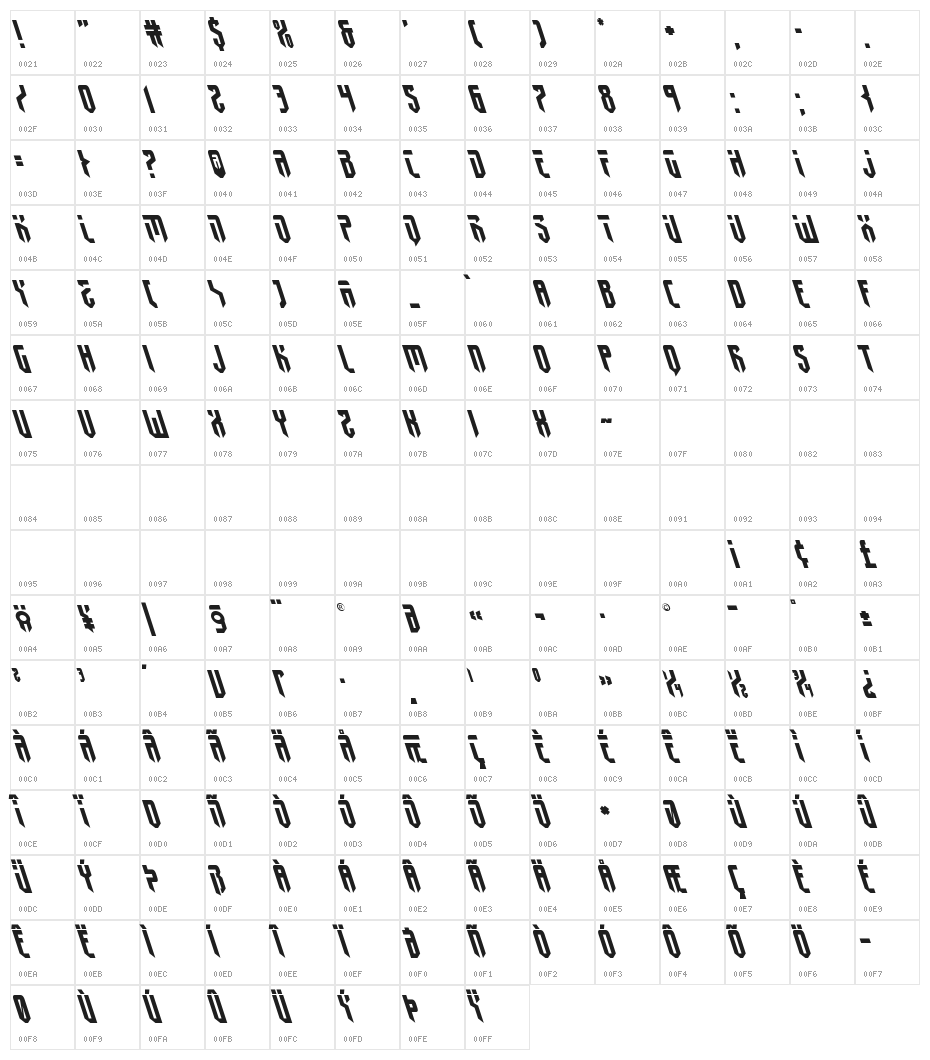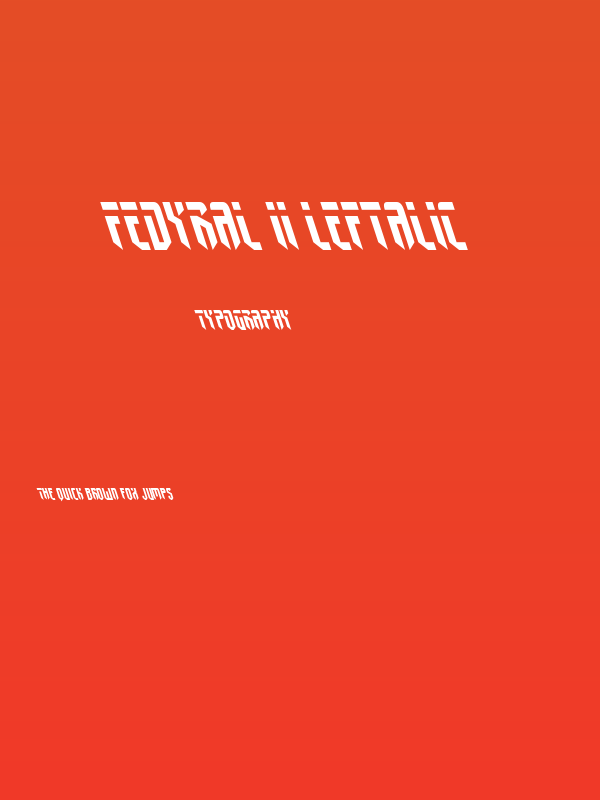
Fedyral II Leftalic Font
Fedyral II Leftalic Description
This font features a bold and angular design with a distinct slant to the left, giving it a dynamic and energetic appearance. The characters are constructed with sharp, geometric lines and a consistent thickness, creating a strong visual impact. The uppercase and lowercase letters maintain a uniform style, with the uppercase being slightly more pronounced. Numbers and special characters follow the same angular theme, ensuring a cohesive look across all elements. The font's unique style makes it suitable for projects that require a modern and edgy aesthetic.